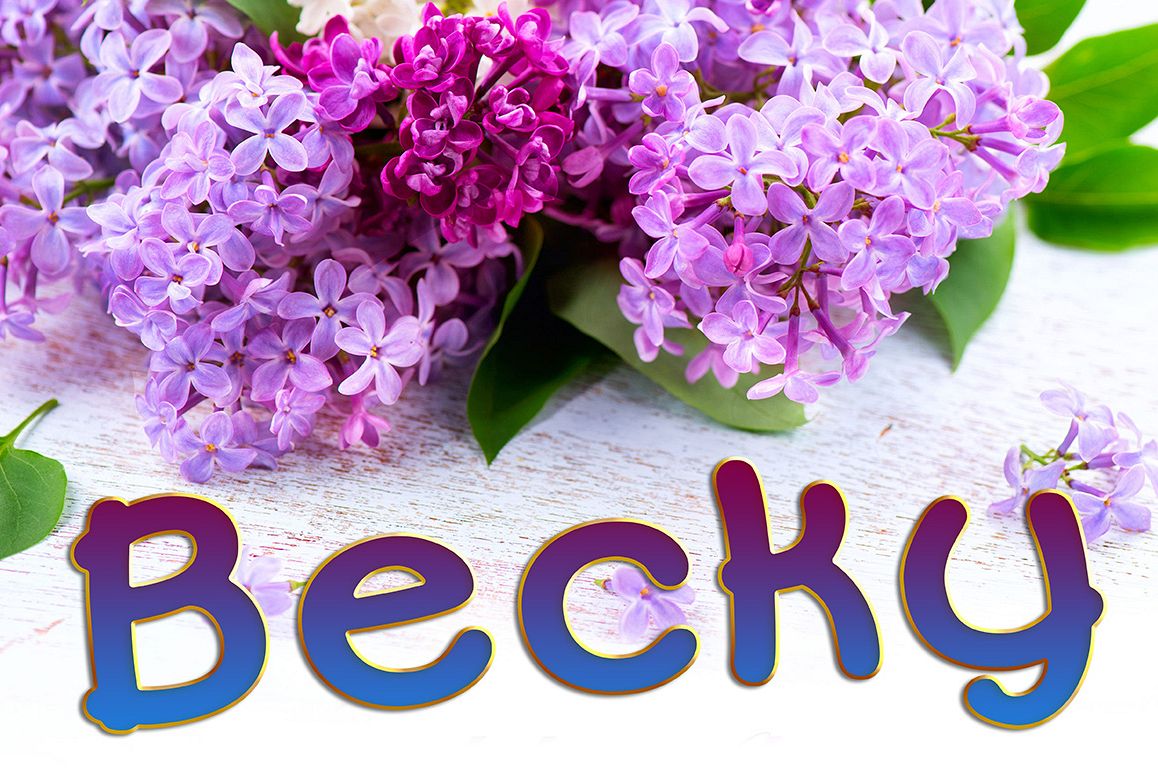
Becky Font Family
Becky Font Family is a modern font with a large X height for easy readability. The typeface is great for personal expression products such as: postcards, greeting cards, t-shirts, scrapbooking, and shopping bags. It has a free and carefree style, making it great for advertising, publishing, and the internet. The font comes in four weights: Becky Light, Becky Regular, Becky Bold, and Becky Heavy and can be purchased individually. Each weight include OTF and TTF files with (Latin-1 Supplement) ÀÁÂÃÄÅÆÇÈÉÊËÌÍÎÏÝ ÑÒÓÔÕÖØŒÙÚÛÜ àáâãäåæçèéêëìíîïñòóôõöðøœùúûüýÿ.
Becky Regular is a modern font with a large X
height for easy readability. The typeface is great for personal
expression products such as: postcards, greeting cards, t-shirts,
scrapbooking, and shopping bags. It has a free and carefree style,
making it great for advertising, publishing, and the internet. The font
comes in four weights: Becky Light, Becky Regular, Becky Bold, and Becky
Heavy, sold separately or together at a discount as Becky Font Family.